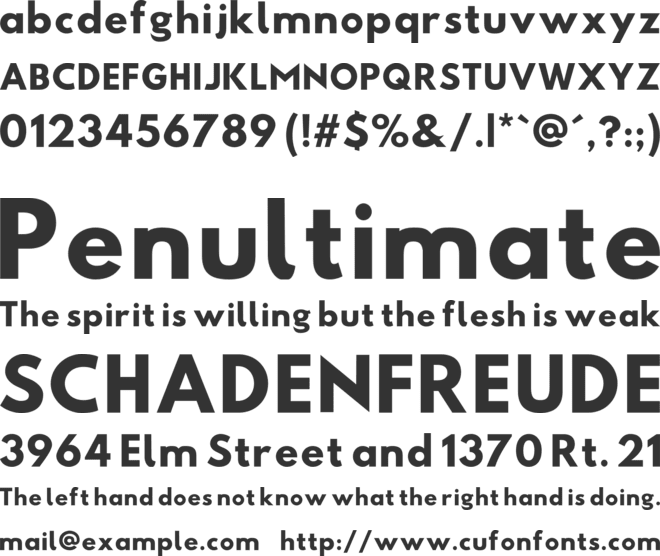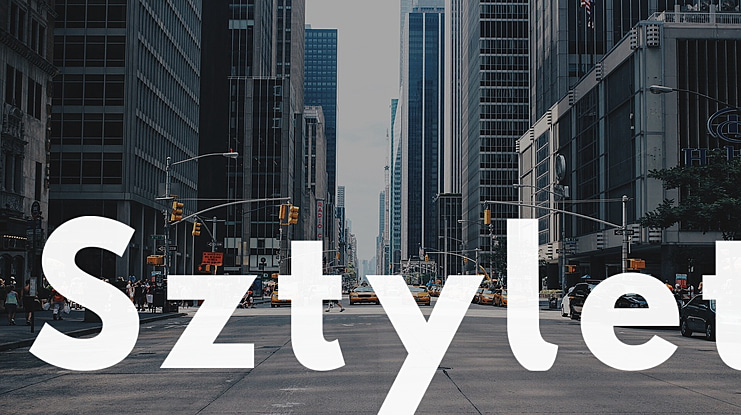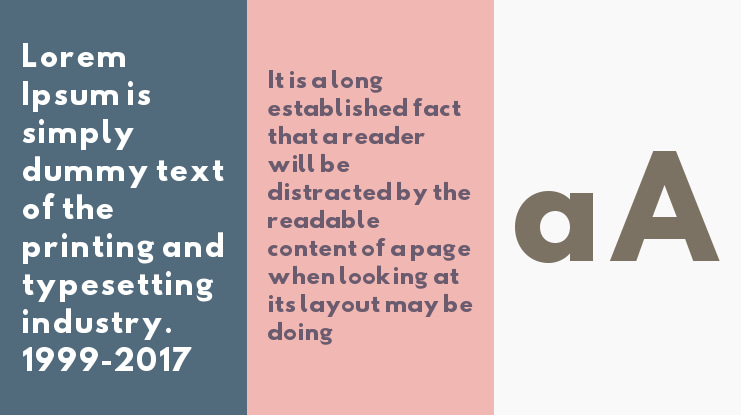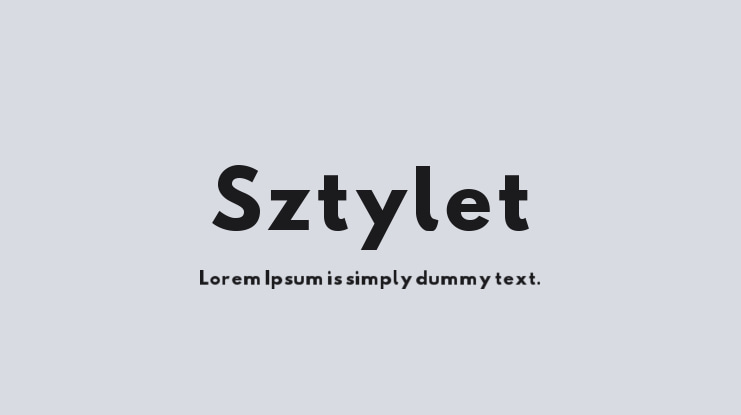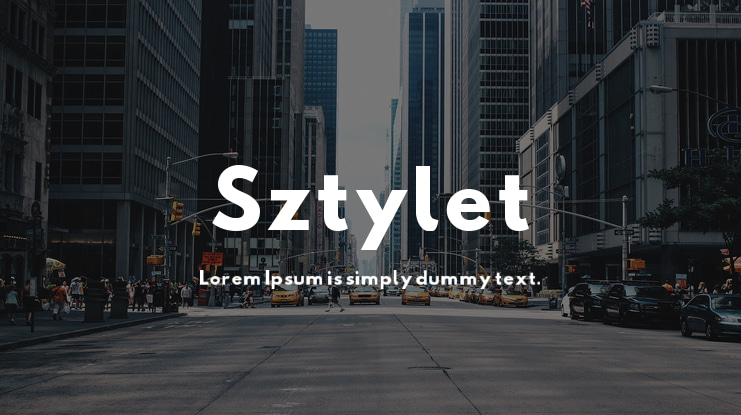
Sztylet Font Family
This is a Fork from the Open-Source font Hussar, by Cannot Into Space Fonts. It is made to fix several problems and inefficiencies in Hussar and add new styles of characters.